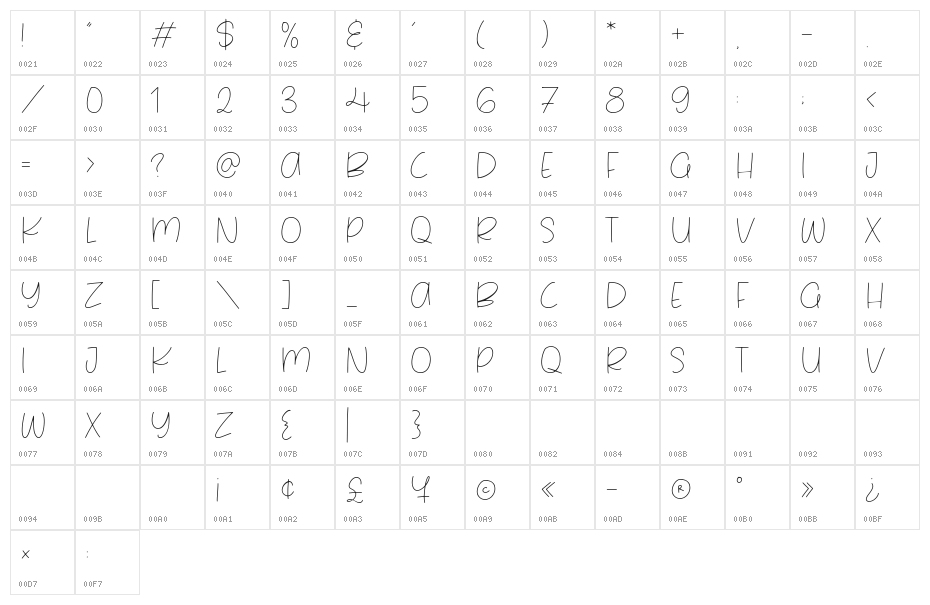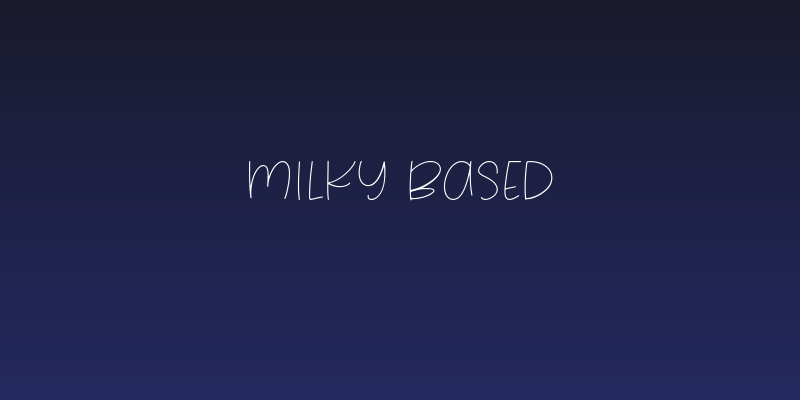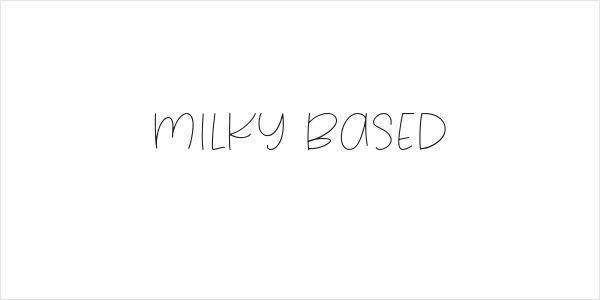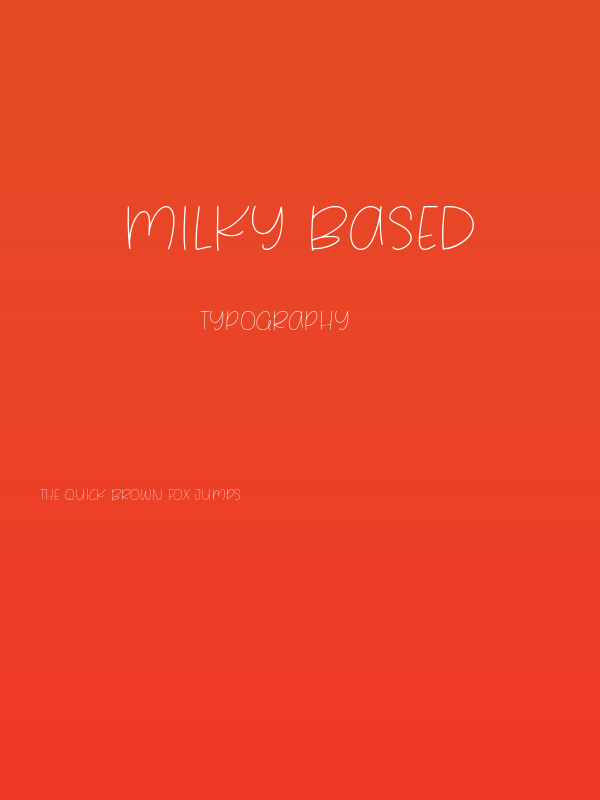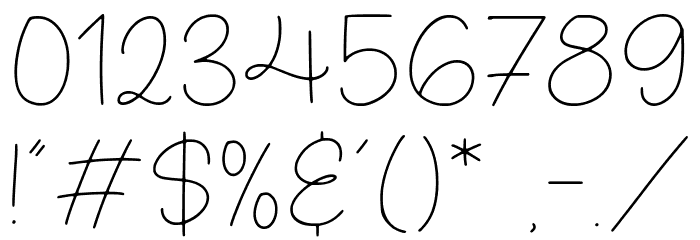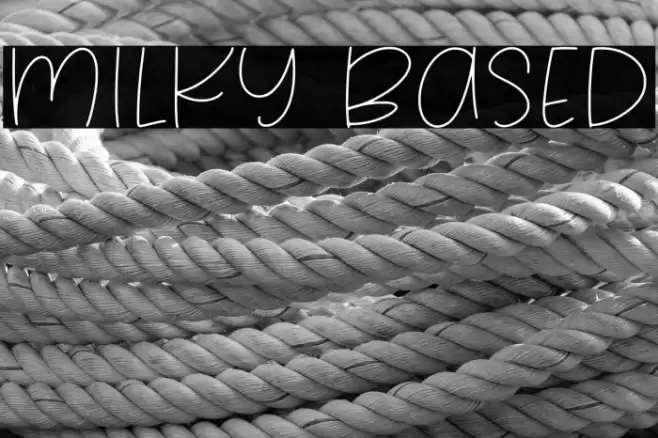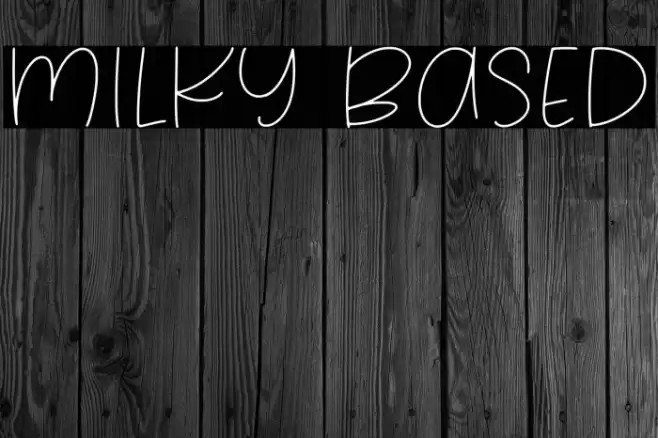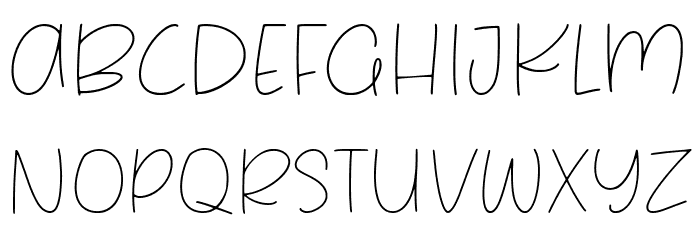
Milky Based Font
Milky Based Description
This font features a playful and whimsical handwritten style, characterized by its smooth, flowing lines and slightly irregular shapes that give it a casual, friendly appearance. The letters are evenly spaced with a consistent stroke width, creating a harmonious and balanced look. The rounded edges and gentle curves add to its approachable and informal feel, making it suitable for projects that require a personal touch. The numerals and special characters maintain the same playful aesthetic, ensuring a cohesive look across all text elements.
| Overall Style | Casual |
| Use Case | Headlines, Informal text, Creative projects |
| Proposed Projects | Ideal for greeting cards, children's books, playful branding, or any project that benefits from a personal, informal touch. |